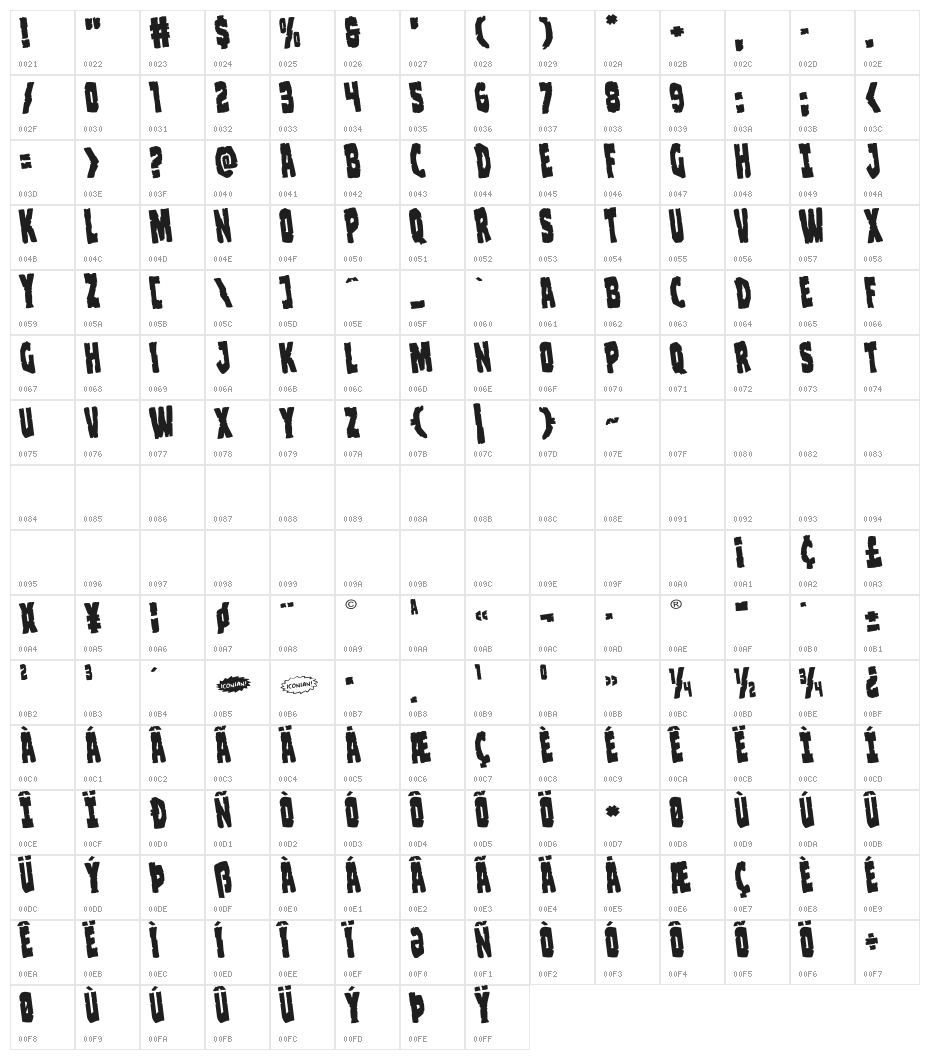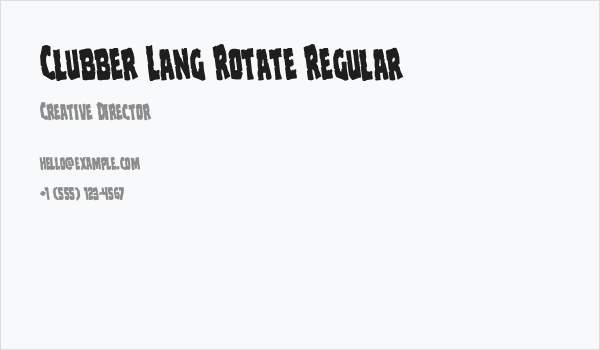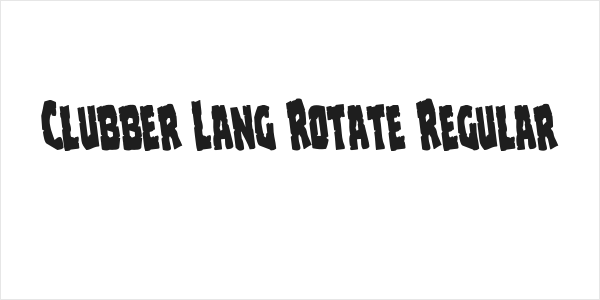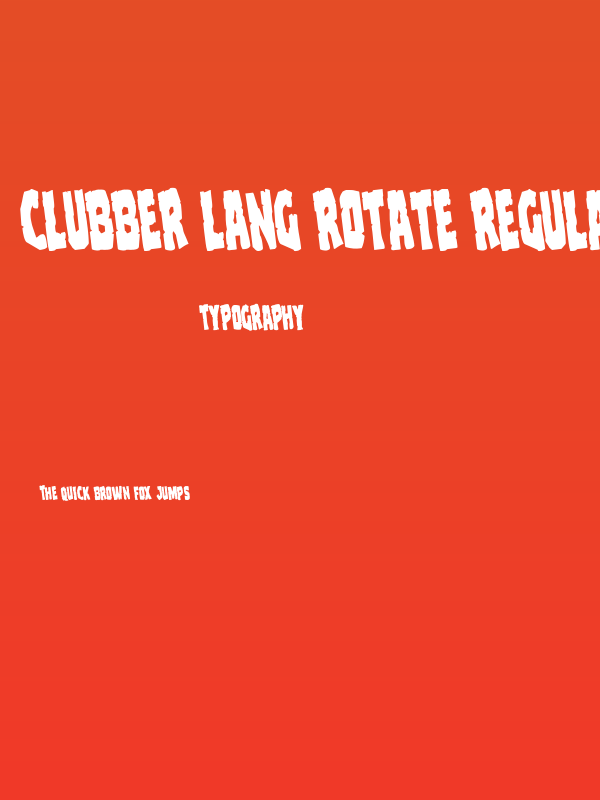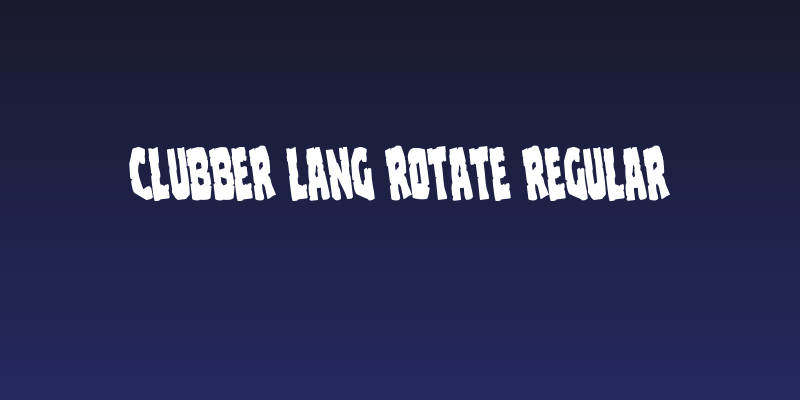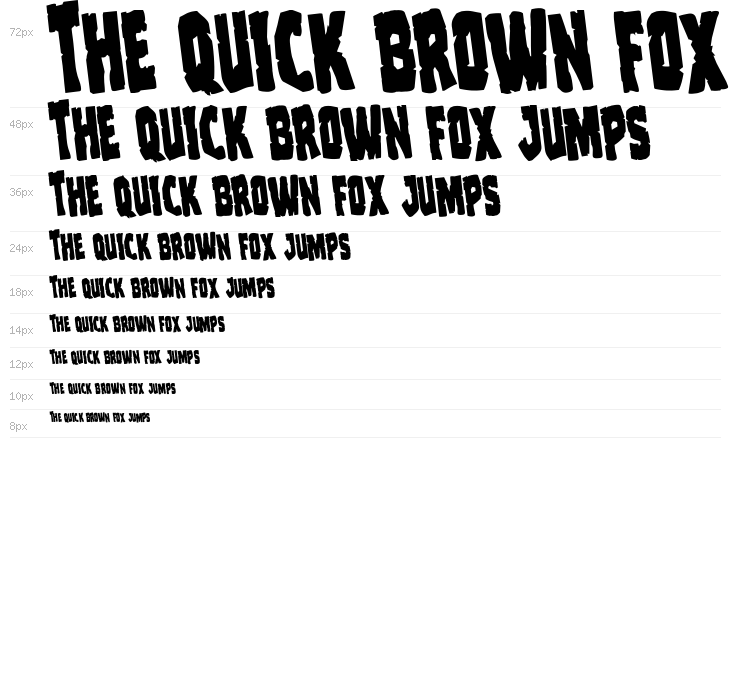
Clubber Lang Rotate Regular Font
Clubber Lang Rotate Regular Description
This font features a bold, rugged style with a distressed appearance, giving it a raw and edgy look. The characters are heavily textured, with irregular edges and a hand-crafted feel. This design choice creates a sense of movement and energy, making it ideal for projects that require a strong visual impact. The uppercase and lowercase letters maintain a consistent weight, while the numbers and special characters follow the same bold and rough aesthetic. This font is perfect for designs that aim to convey a sense of rebellion or nonconformity.
| Proposed Projects | Ideal for album covers, posters, streetwear branding, and event flyers. |